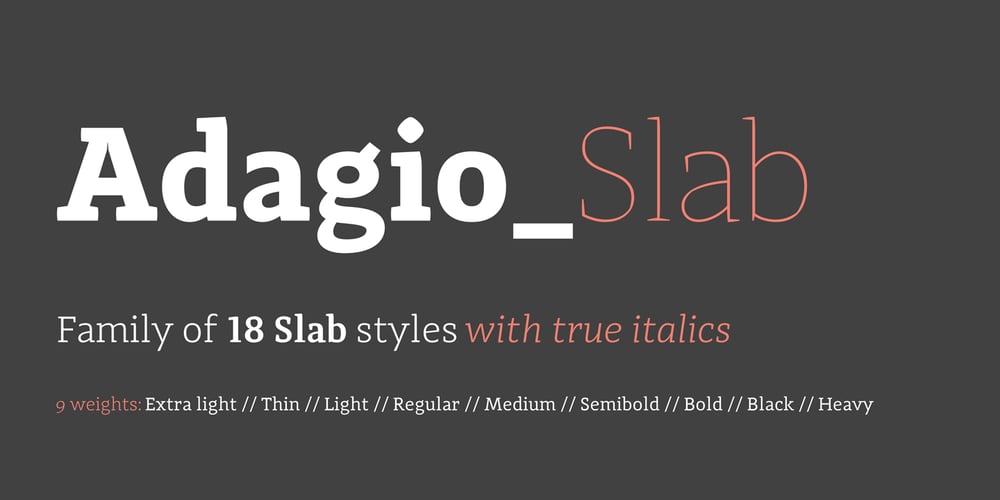
Adagio Slab Font Family was designed by Mateusz Machalski and published by Machalski. Adagio Slab contains 18 styles and family package options. The Adagio Family is a part of Mateusz Machalski’s, Warsaw Academy of fine arts Master Degree Diploma in multimedia studio, conducted by Professor Stanisław Wieczorek and his brave PhD student Jakub Wróblewski. Adagio is a modern type family. It consists of 3 main varieties: sans, serif and slab. Each has its own “true italic” set. All of the styles together have over 400 characters in 9 different thicknesses. The Adagio family was created mostly for company identities. The idea was to create a wide range of different varieties that are stylistically consistent. Adagio Slab – Slab variety combines qualities of the Sans and Serif varieties. It has the same contrast as Sans. As distinct from Serif, Adagio Slab contains strong, beamy and symmetrical serifs in the form of pillows. Thanks to large X height, and highly stretched descenders, it also works correctly in longer text, while its strong detail is good for headlines. Slab version is a great complement for Adagio Serif and Adagio Sans.